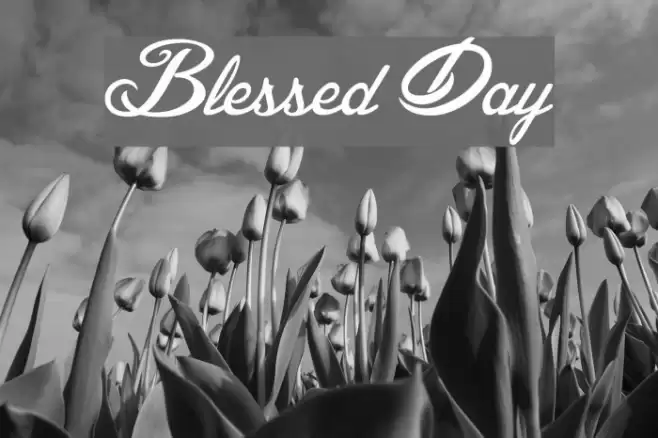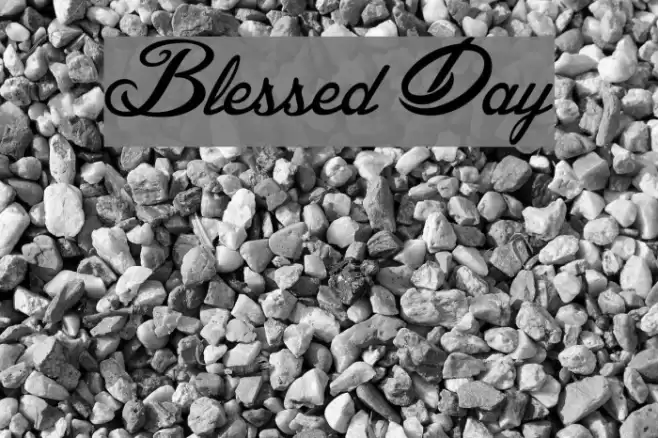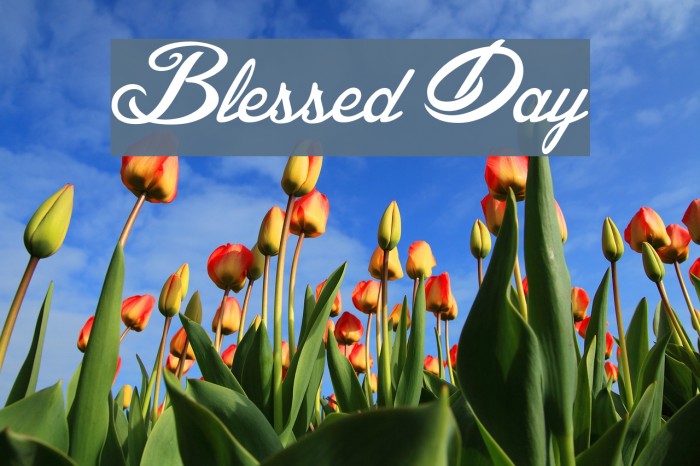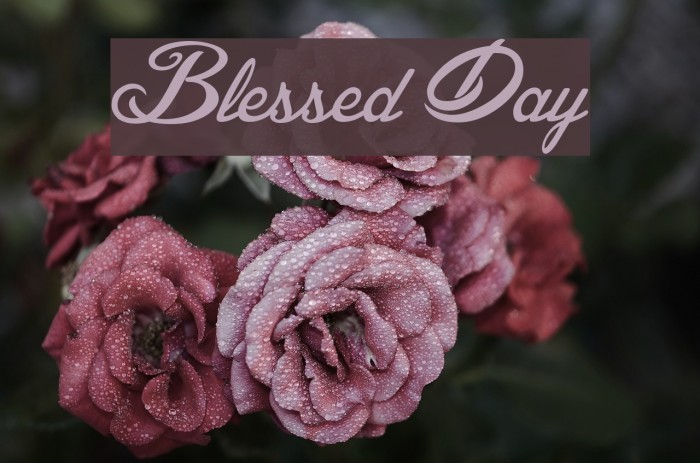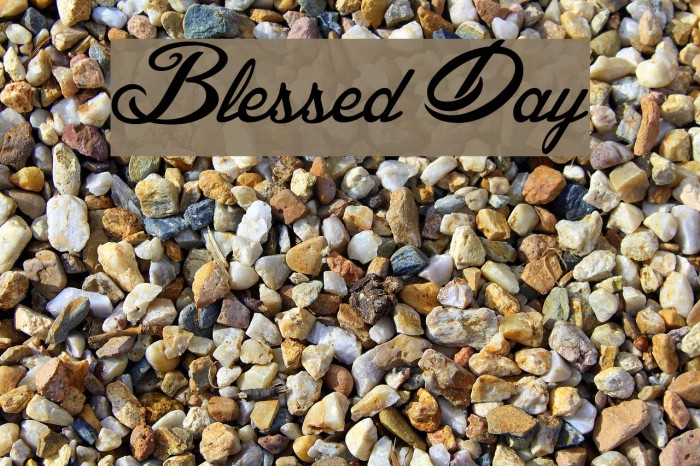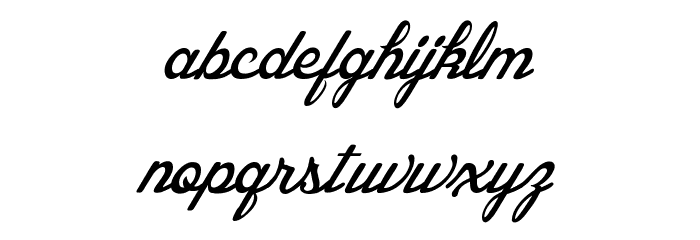
Blessed Day Font
Blessed Day Description
This font features an elegant and flowing script style, characterized by its ornate and decorative letterforms. The uppercase letters are particularly elaborate, with sweeping curves and flourishes that give a sense of movement and sophistication. The lowercase letters maintain a consistent style, with a slightly more restrained design that complements the uppercase. This font exudes a sense of elegance and formality, making it suitable for projects that require a touch of class and refinement. The overall appearance is both artistic and legible, with a balanced contrast between thick and thin strokes.
An elegant and flowing script font with ornate letterforms and sophisticated style from Uncategorized fonts.
- Proposed Projects: Ideal for wedding invitations, elegant branding, formal event programs, and decorative signage.
- Use Case: Logos, Invitations, Decorative text